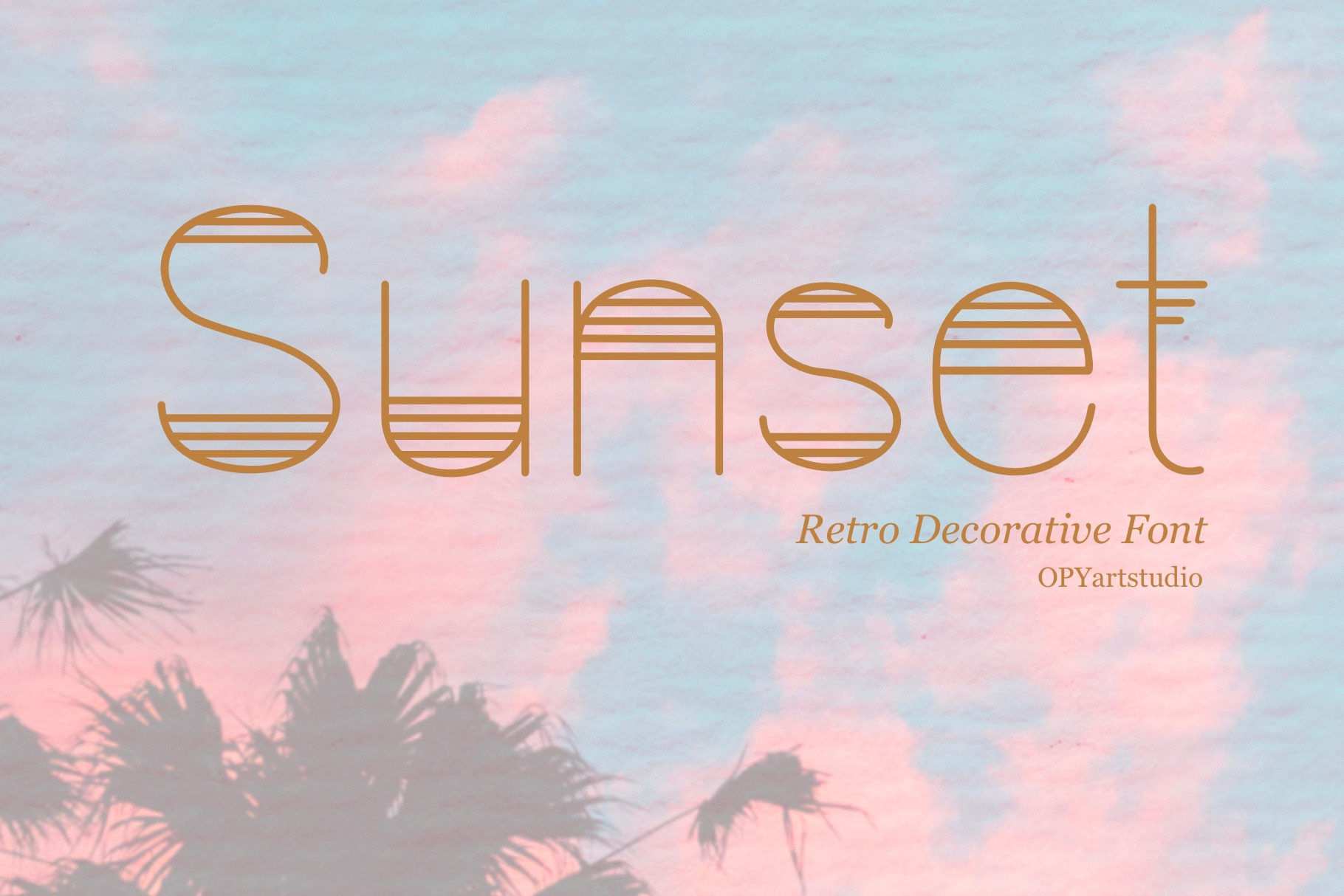
Sunset - Retro Decorative Font
Introducing the "Sunset" font, which adds a unique twist to the popular sunset retro design. I wanted to make this font stand out from the rest of the retro market, so I gave it a delicate and thin look instead of the thick bubble style that's commonly seen. The result is a charming, old-time feel that's both unique and timeless.
The font is versatile and can be used for a wide range of projects, from designs and prints to presentations. Its simplicity and elegance make it an excellent choice for any designer or artist looking to add a touch of retro style to their work.